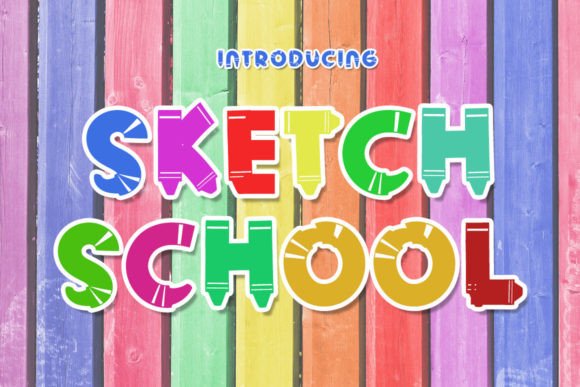
Are you ready to unleash the power of words with the Sketch School Font Family? This captivating display font is your key to creating designs that dance off the page with joy and elegance.
Sketch School's fresh and clean lines evoke a sense of effortless sophistication, perfect for website articles that demand attention. Its beautiful curves and charming imperfections add a touch of whimsy to your designs, making them irresistible to the eye.
But Sketch School is more than just a pretty face. It's a versatile performer that shines in a myriad of projects, from formal invitations to playful posters. Its ability to evoke emotions and engage readers makes it the perfect choice for businesses seeking to make a lasting impression.
With Sketch School at your fingertips, your designs will radiate a warm and inviting glow. Imagine your website articles captivating readers with their delightful charm, leaving them eagerly scrolling for more. Your branding will exude an air of elegance, setting your business apart in the competitive digital landscape.
So, why settle for ordinary fonts when you can embrace the extraordinary? Download the Sketch School Font Family today and unlock a world of design possibilities where joy, elegance, and persuasion intertwine. Let your words dance off the page with the playful spirit of Sketch School and watch your business blossom into a beacon of creativity and success.